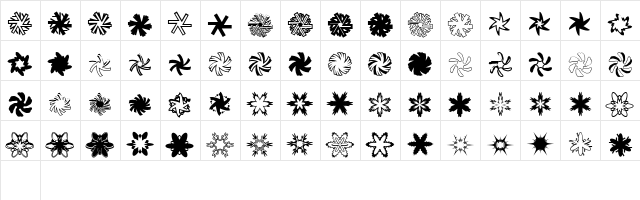
MiniPics-Snowflakes Roman
Design Context for MiniPics-Snowflakes
MiniPics-Snowflakes is a composed and adaptable typeface that performs quietly and consistently across a wide range of design contexts.